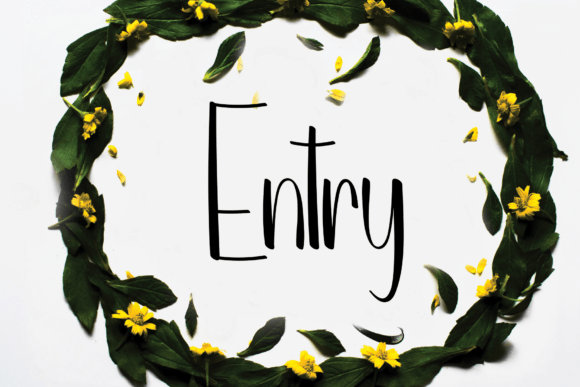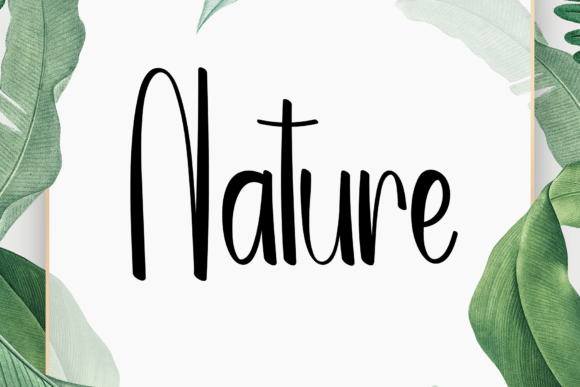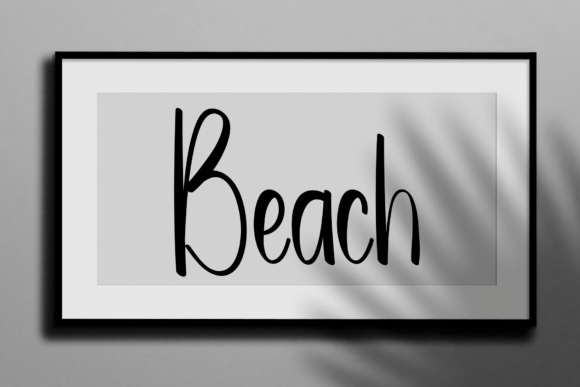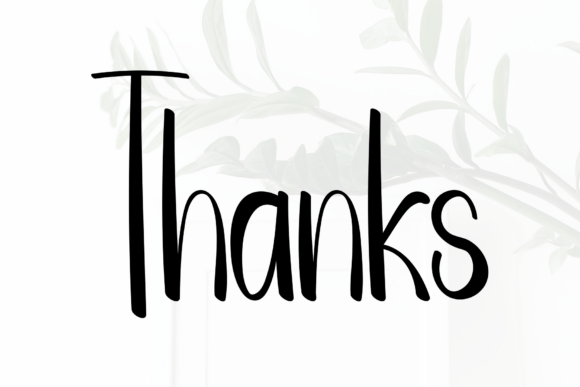
Introducing Details Melody Font: A Charming Handwritten Style for Your Design Projects
In the world of typography, a well-crafted font can elevate your design projects from ordinary to extraordinary. Details Melody is one such font that has captured the hearts of designers and crafters alike with its charming handwritten style. This beautiful font is filled with a sense of heartfelt perfection, making it an ideal choice for a variety of creative endeavors.
The Characteristics of Details Melody Font
Details Melody boasts smooth strokes and organic lines that evoke a relaxed atmosphere, perfect for designs that require a personal touch. The font’s fluidity and natural flow make it easy to read and visually appealing. Its unique characteristics include:
- Smooth Strokes: The font features smooth, flowing strokes that give it a natural and effortless look.
- Organic Lines: The organic lines in Details Melody add a touch of warmth and personality to your designs.
- Relaxed Atmosphere: The font’s overall feel is calming and inviting, making it perfect for designs that require a friendly tone.
Details Melody is a versatile font that can be used for a wide range of design projects, including:
- Branding: Create a lasting impression with your brand’s identity using Details Melody for your logos, business cards, and letterheads.
- Invitations: Add a personal touch to your invitations, whether it’s for a wedding, birthday party, or baby shower.
- Social Media Graphics: Elevate your social media presence with eye-catching graphics, quotes, and posts featuring Details Melody.
Why Choose Details Melody Font?
With so many fonts available, why should you choose Details Melody for your design projects? Here are a few compelling reasons:
- Unique Style: Details Melody offers a distinctive handwritten style that sets it apart from other fonts.
- Easy to Read: The font’s clarity and legibility make it easy for your audience to read and understand your message.
- Time-Saving: With Details Melody, you can create professional-looking designs in no time, saving you time and effort.
Tips for Using Details Melody Font Effectively
To get the most out of Details Melody, here are some tips to keep in mind:
- Pair with Other Fonts: Experiment with pairing Details Melody with other fonts to create a unique and visually appealing combination.
- Use for Headings and Titles: Details Melody is perfect for headings and titles, adding a touch of personality to your designs.
- Experiment with Colors: Try out different colors to find the perfect match for your design and brand identity.
Details Melody is a charming handwritten font that can add a touch of warmth and personality to your design projects. Its smooth strokes, organic lines, and relaxed atmosphere make it perfect for a variety of creative endeavors. Whether you’re a designer, crafter, or DIY enthusiast, Details Melody is an excellent choice for your typography needs. So why wait? Give Details Melody a try and take your designs to the next level!